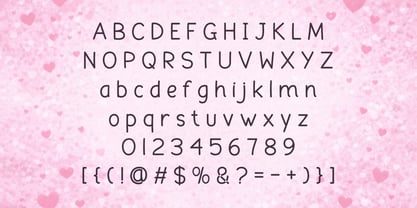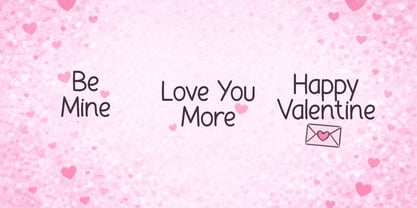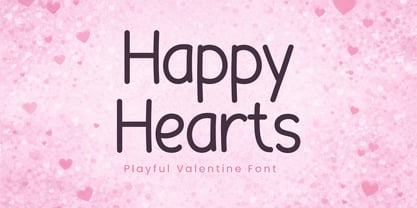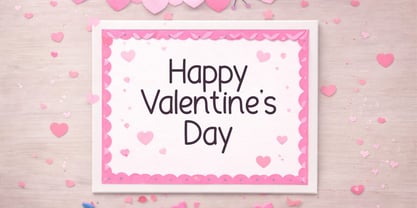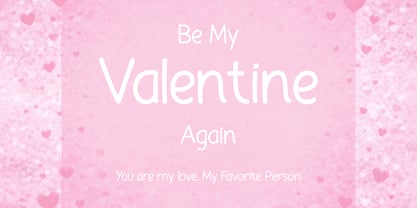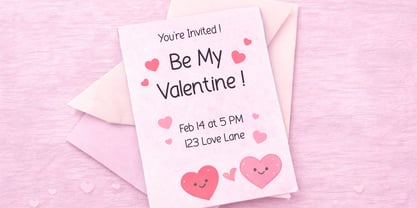
Happy Hearts
The Happy Hearts Font Family was designed by Michael Everson and published by Qiubare Studio. Happy Hearts contains 1 styles. More about this family
Happy Hearts is a playful rounded display typeface that exudes a friendly and cheerful personality. This typeface is designed to infuse warmth and approachability into your visual designs. Happy Hearts is ideal for a variety of applications, including greeting cards, children’s projects, packaging, branding, social media graphics, and lifestyle designs. Its clean handwritten style ensures readability while preserving a fun and expressive character, making it perfect for both digital and print use. With its versatile weights and OpenType features, Happy Hearts is a fantastic choice for any project that aims to convey joy and friendliness.